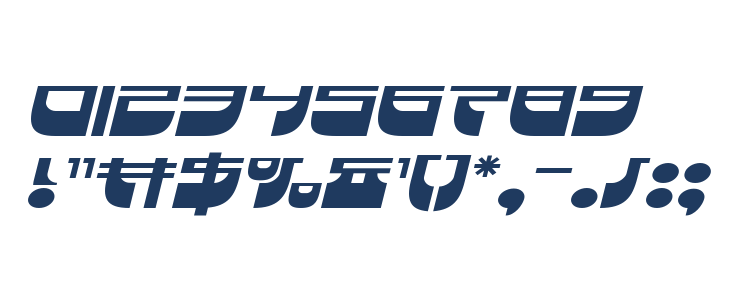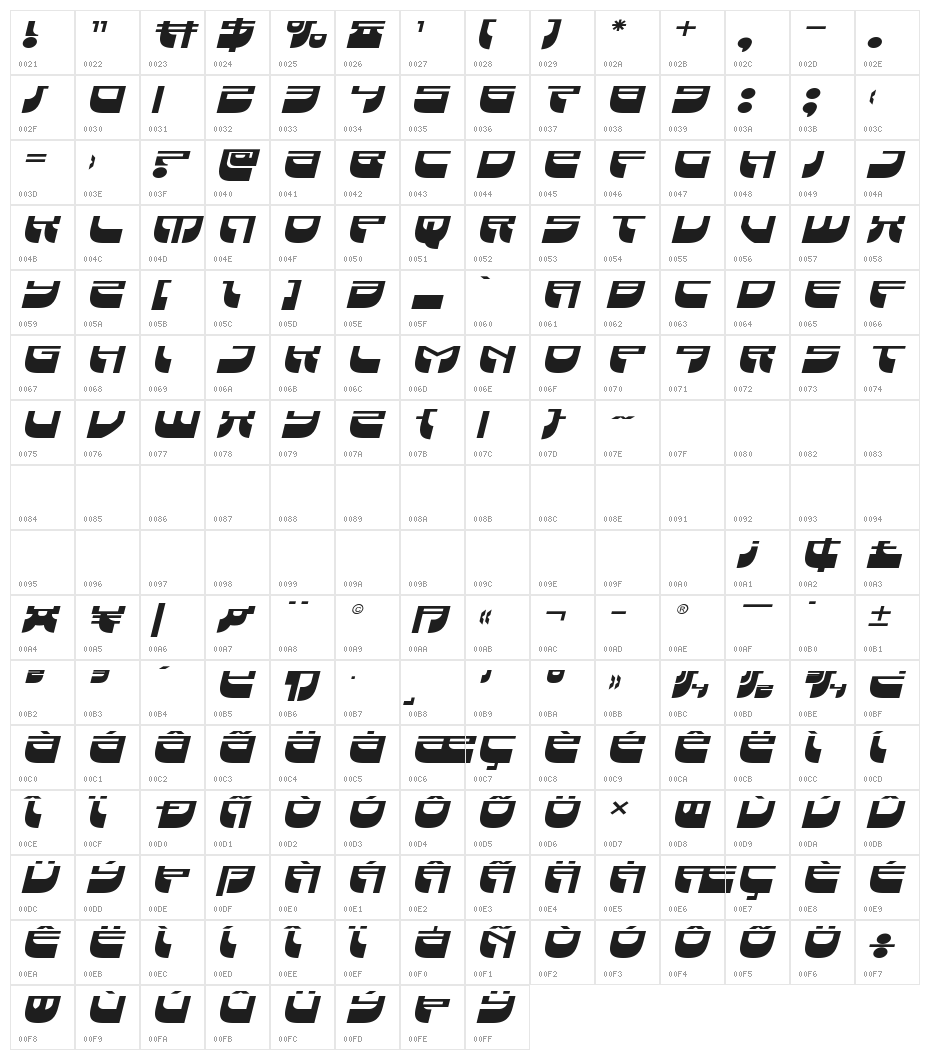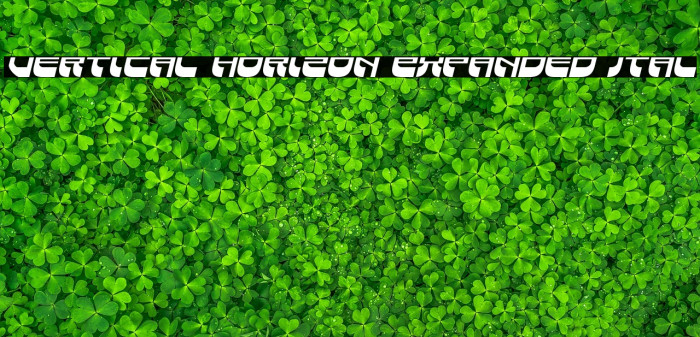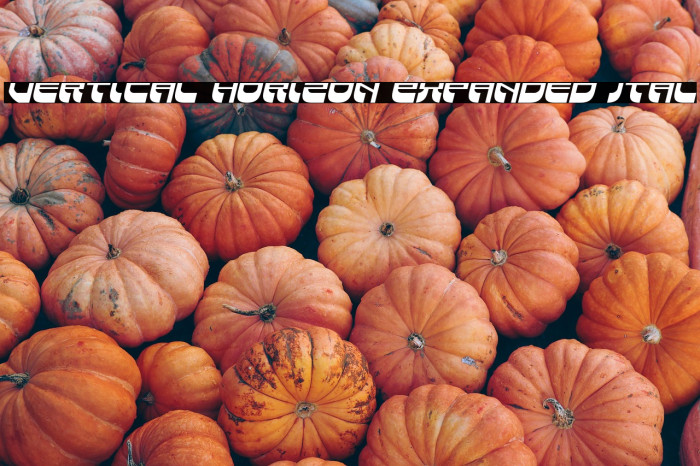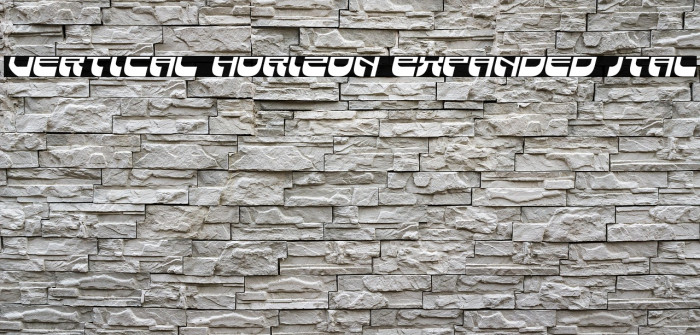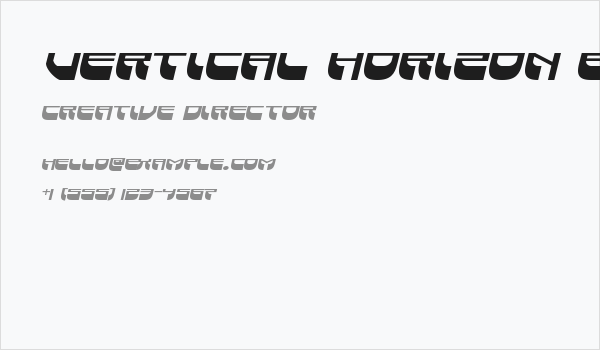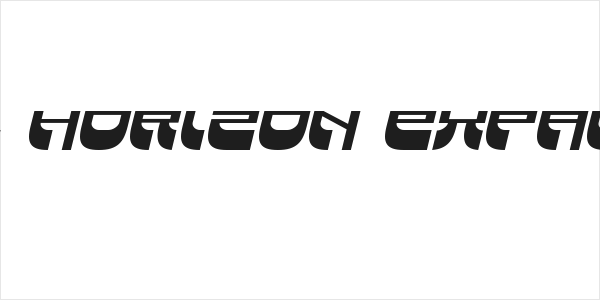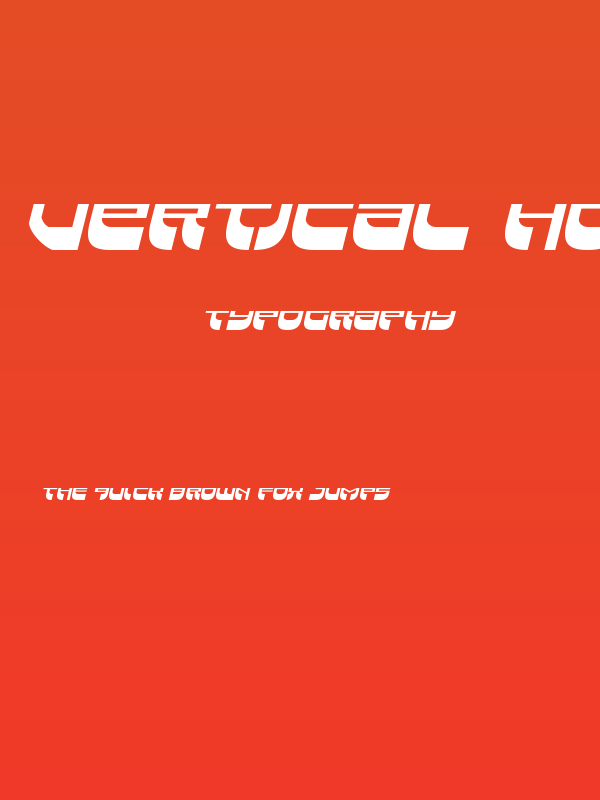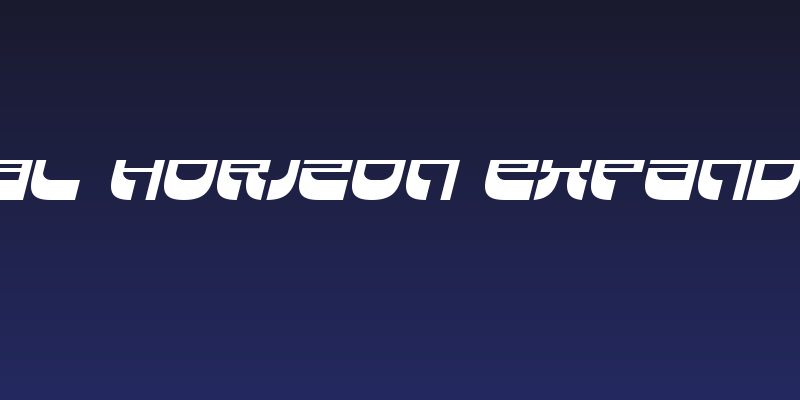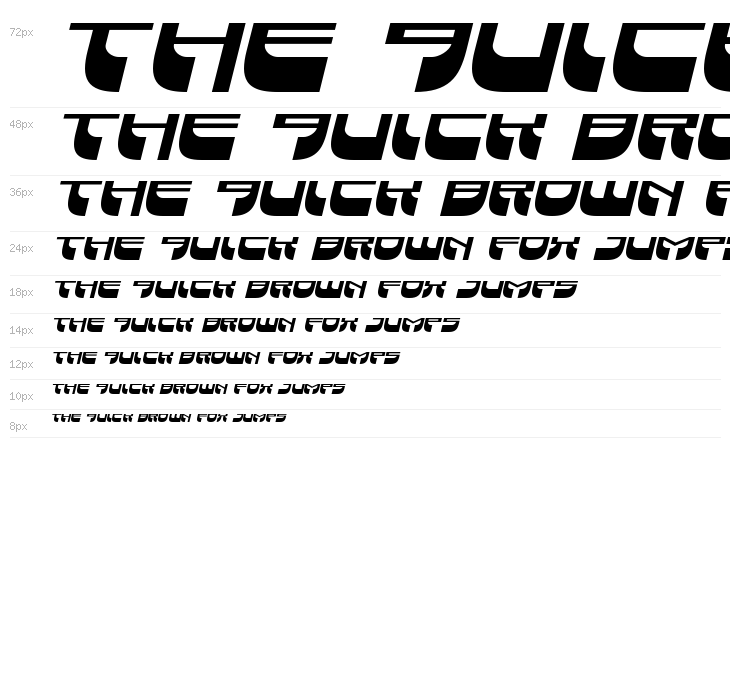
Vertical Horizon Expanded Ital Font
Vertical Horizon Expanded Ital Description
This font features a futuristic and bold design with a distinctly modern appeal. The characters are uniquely shaped with sharp angles and a sleek, aerodynamic look, giving them a sense of motion and energy. The letters are slightly italicized, enhancing the dynamic feel. The expanded width of the characters adds to the boldness, making it stand out in any design. The font maintains a consistent stroke thickness, providing a uniform appearance across all characters. Its geometric style is both eye-catching and versatile, suitable for a variety of creative applications.